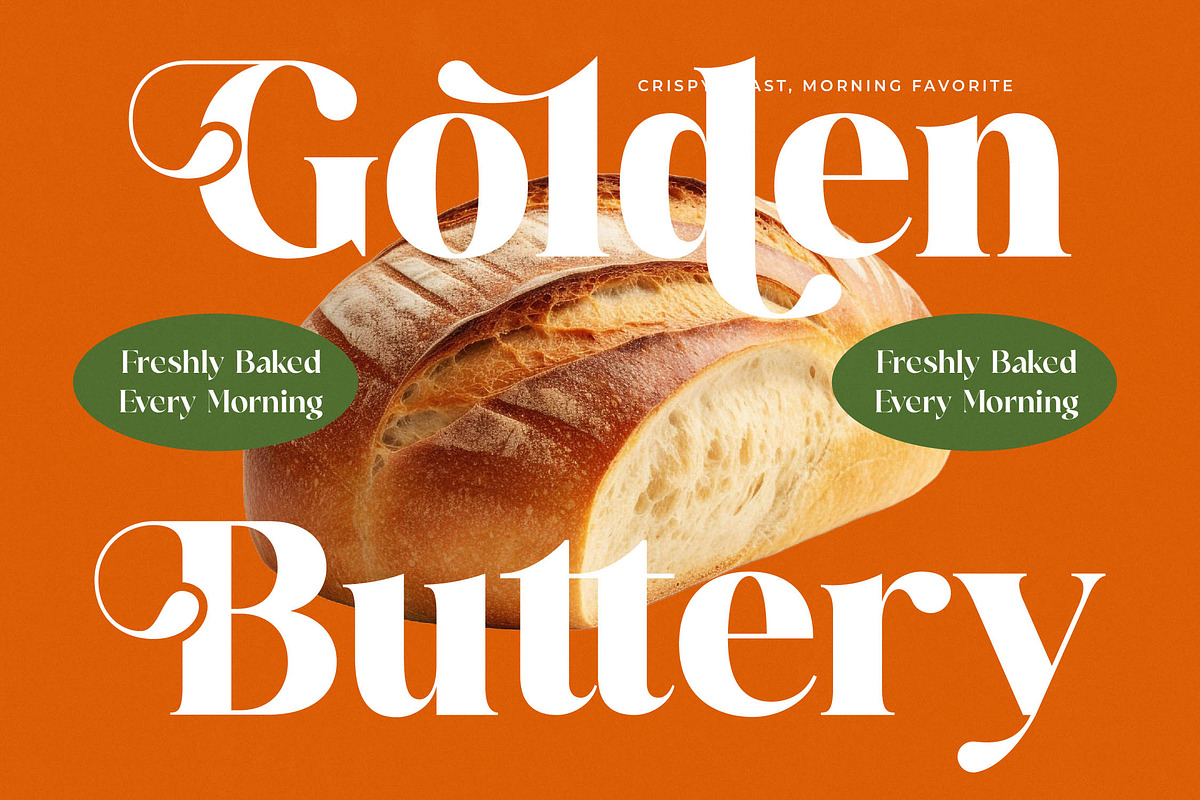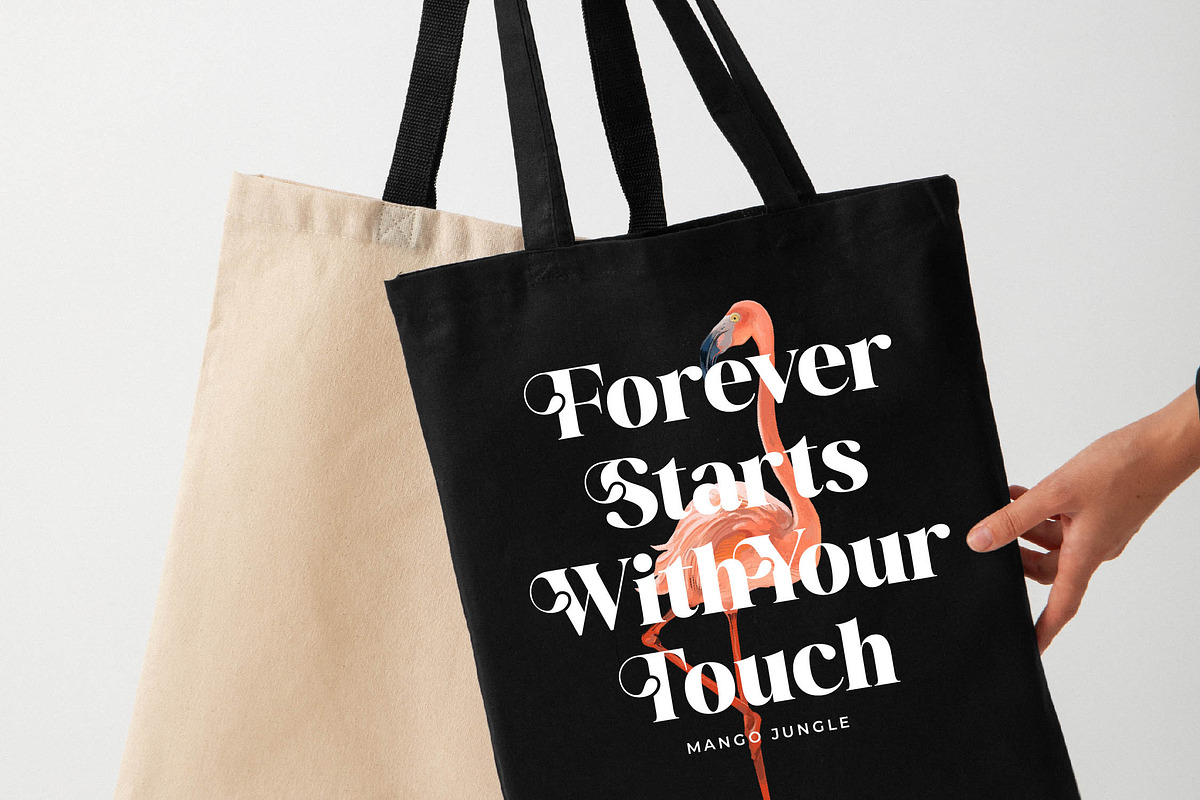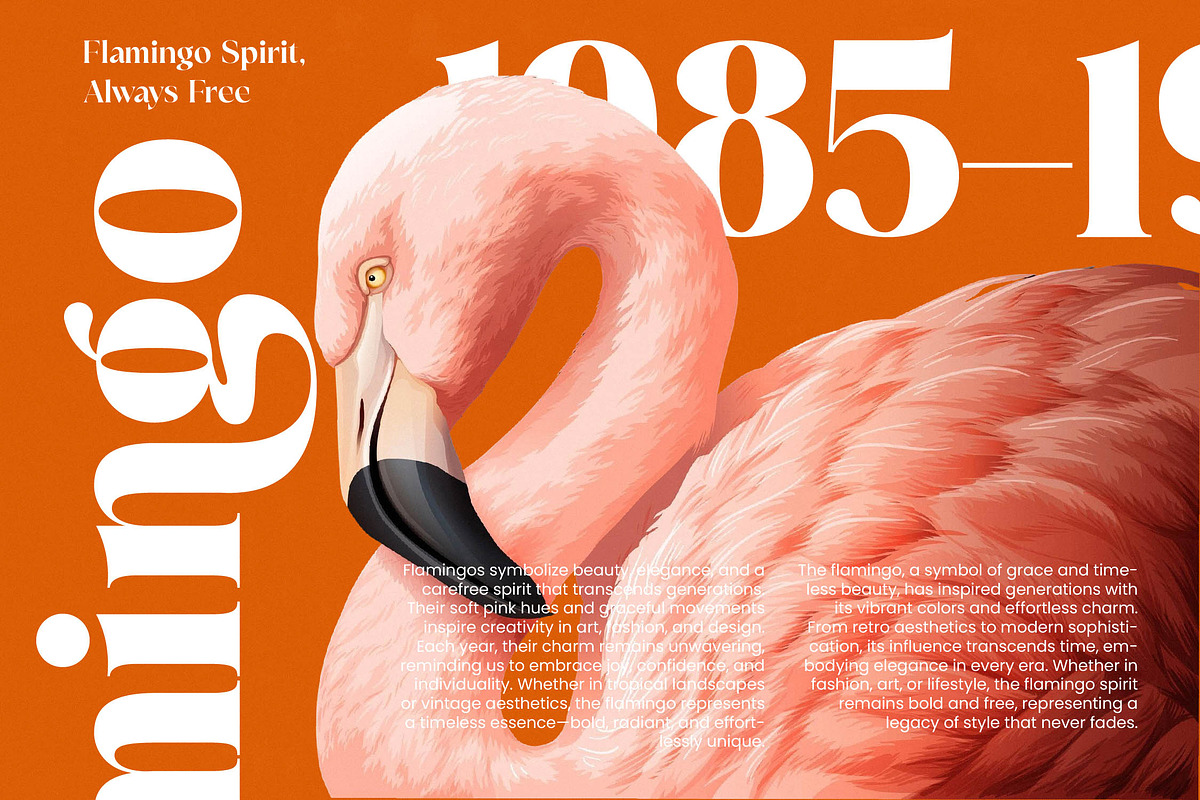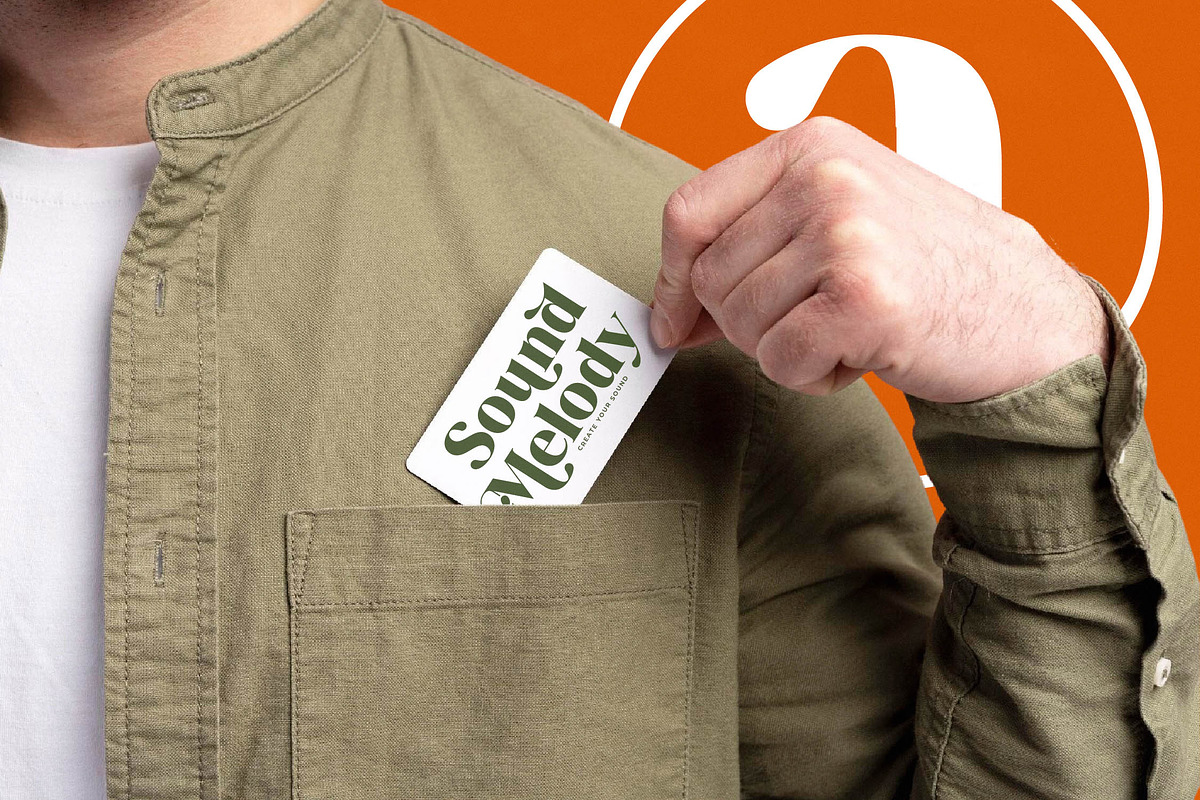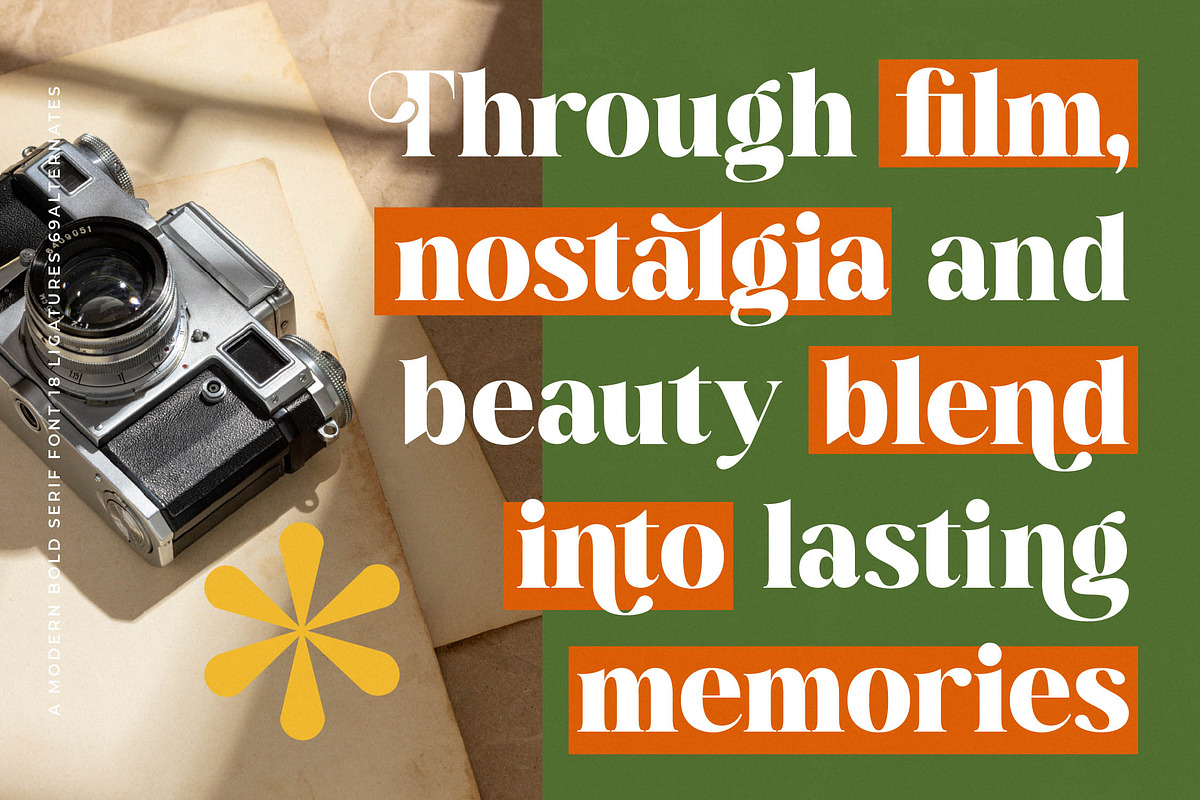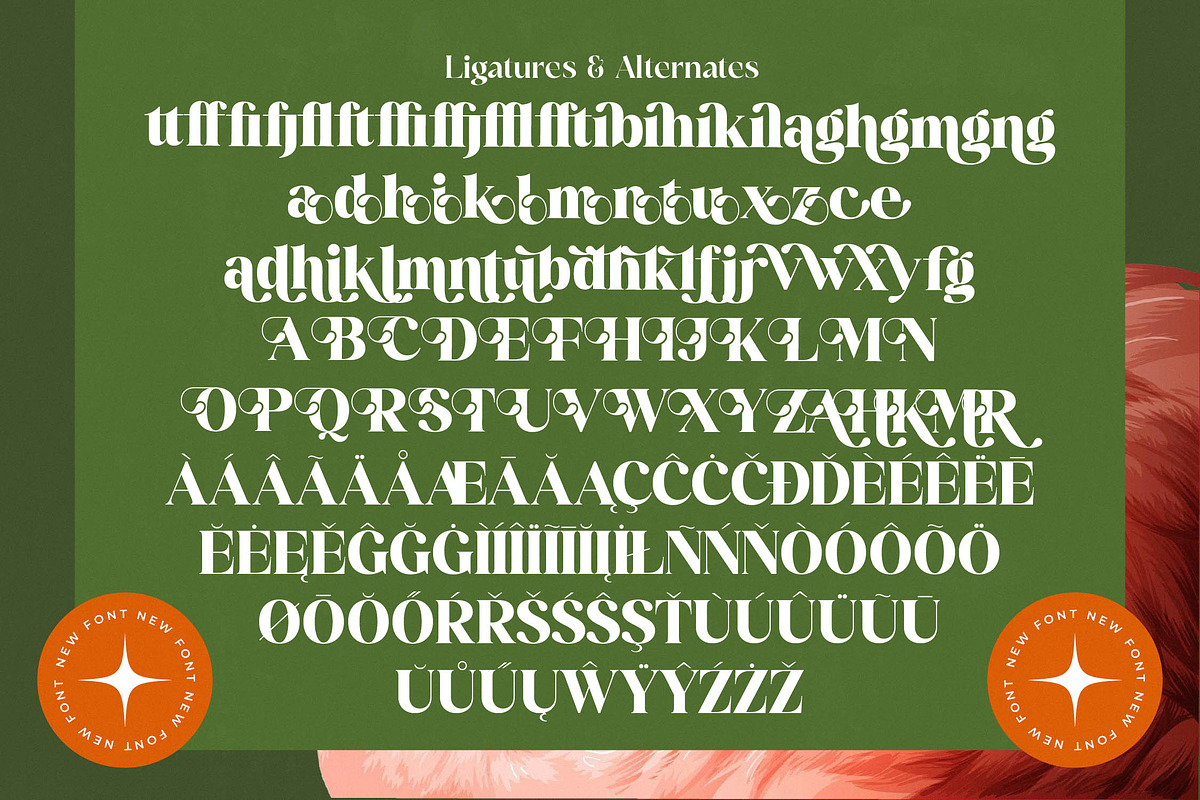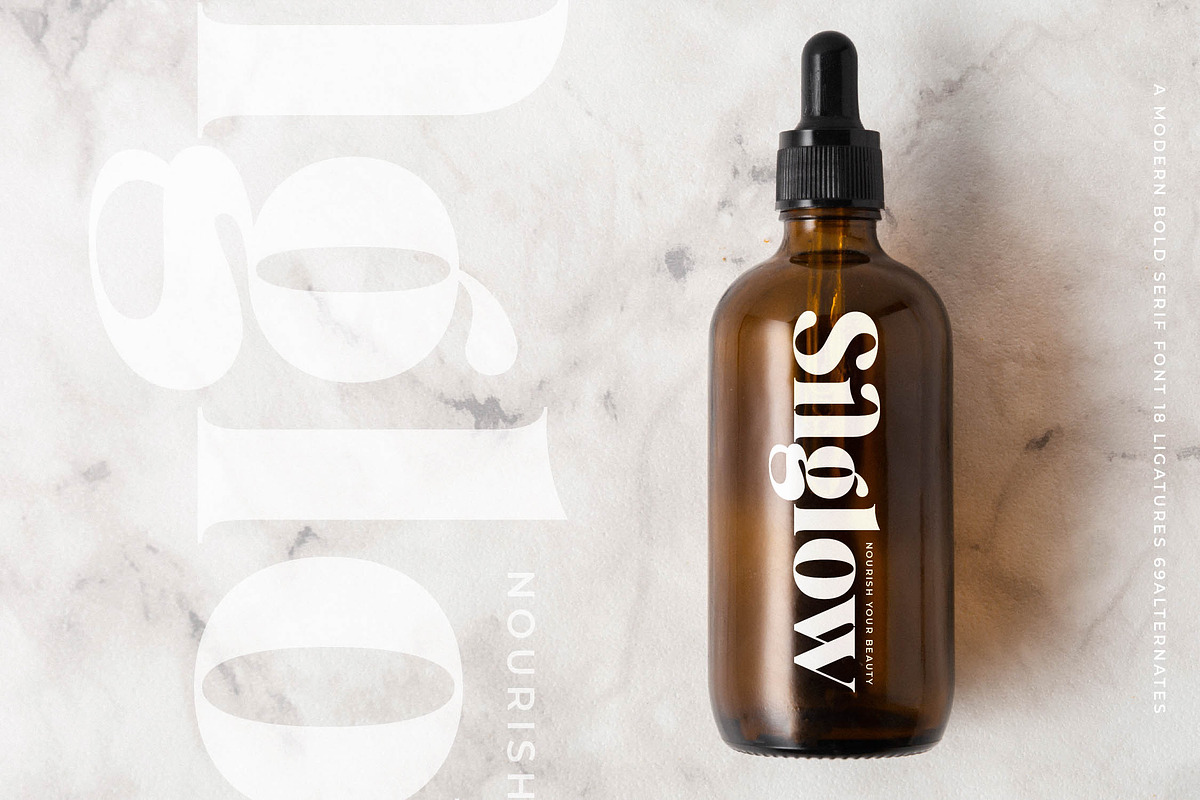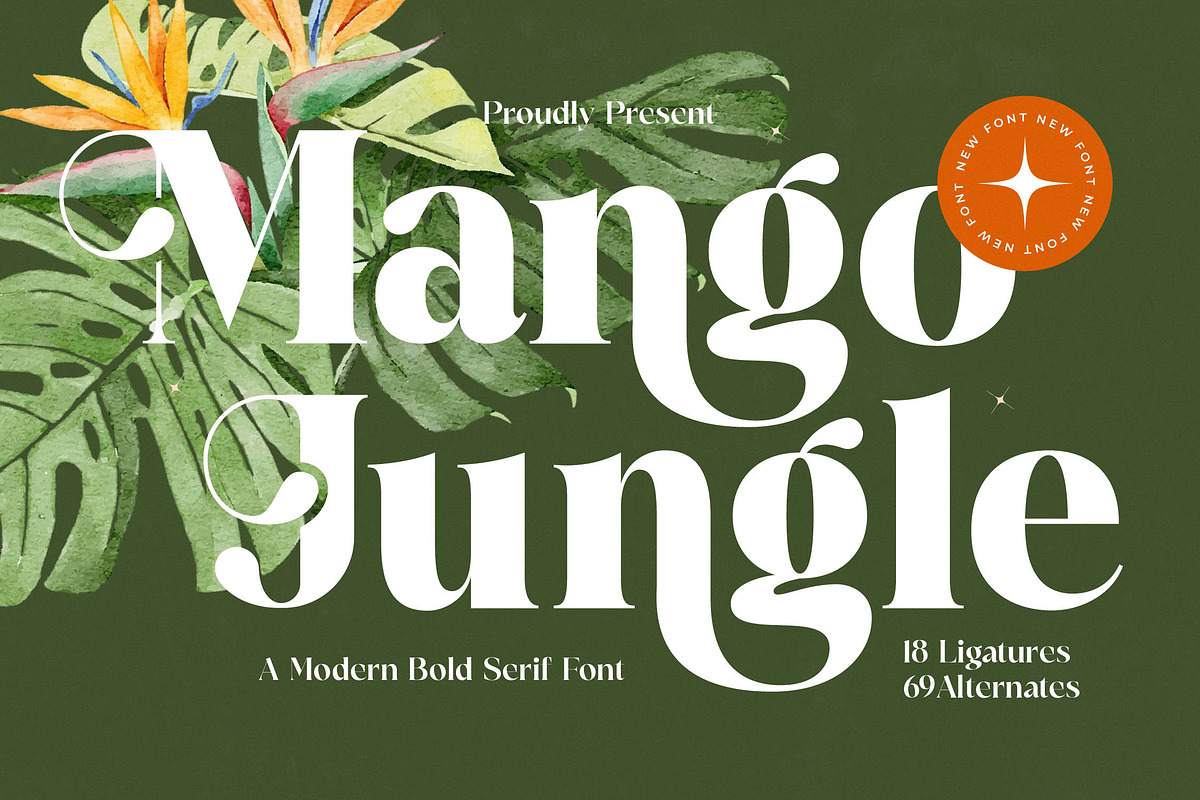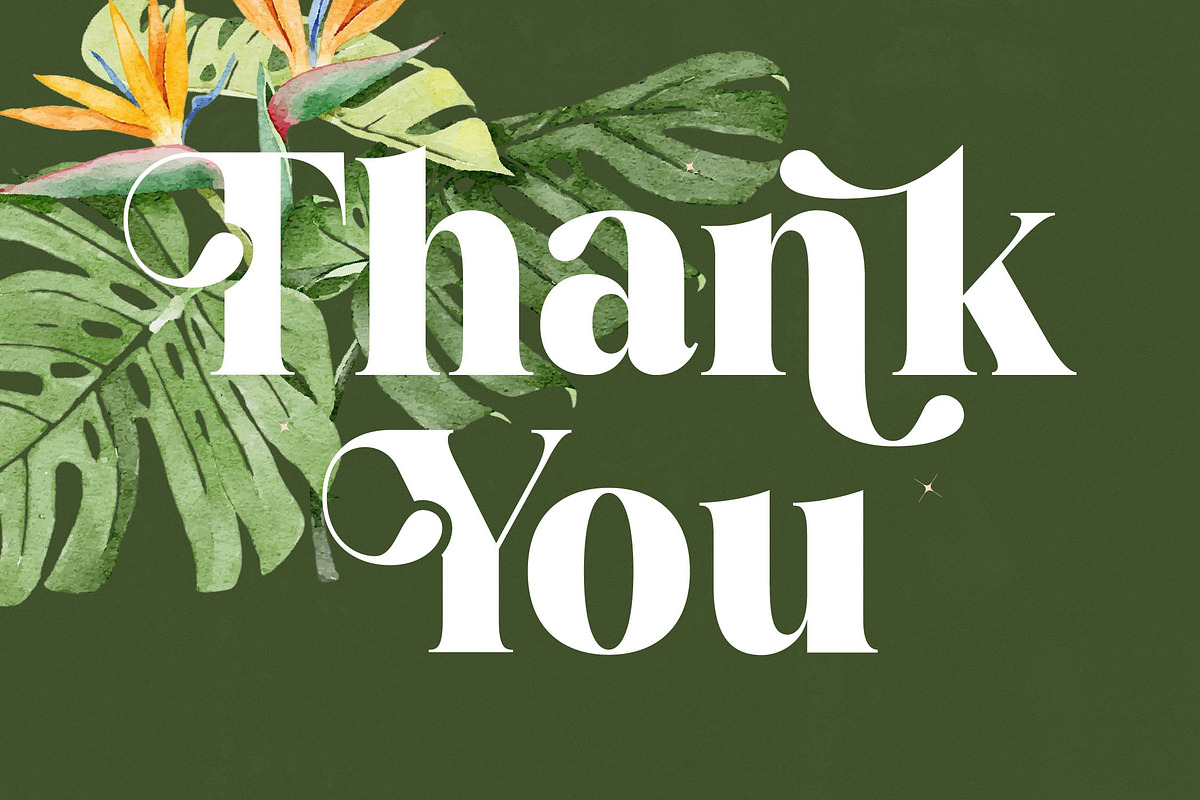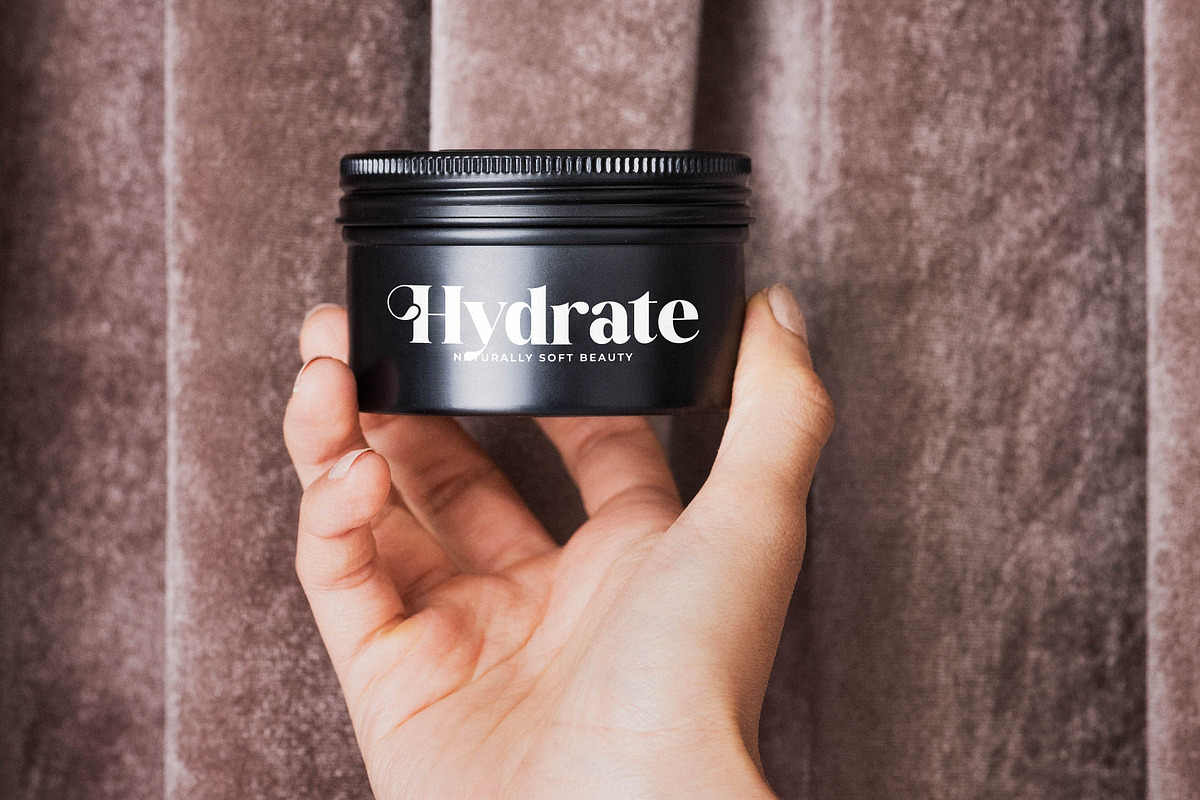
Mango Jungle Modern Bold Serif
Experience the vibrant fusion of elegance and nature with Mango Jungle, a typeface designed to make a bold statement. This modern bold serif font captures the essence of sophisticated tropical aesthetics, perfect for standing out in a crowded market.
Inspired by the lush, intertwining canopies of a sun-drenched rainforest, the letterforms blend organic curves with sharp, precise serifs. The design evokes a sense of wild luxury, mirroring the intricate patterns found in exotic flora and the effortless grace of high-end resort living.
Radiating a unique blend of warmth and authority, this modern serif display is engineered for maximum luxury typography impact. Every character is crafted with a high-contrast serif finish that ensures a premium editorial font quality, providing your creative projects with an undeniable branding impact.
As the industry leans towards more expressive and organic shapes, Mango Jungle sits at the forefront of the current modern serif trend. It answers the growing demand for editorial display fonts that break away from minimalism, offering character-driven typography that feels both timeless and contemporary.
This versatile typeface is a powerhouse for logo design and high-end branding campaigns that require a touch of personality. It excels in the world of editorial layouts, luxurious packaging, bespoke wedding invitations, and cutting-edge fashion lookbooks where visual storytelling is key.
The font package is fully loaded with 18 unique ligatures and 69 stylistic alternates to help you customize every word. It also includes comprehensive swashes, full multilingual support, and a wide array of international characters to ensure your message reaches a global audience without compromise.
- Ligature 18 Alternate 69